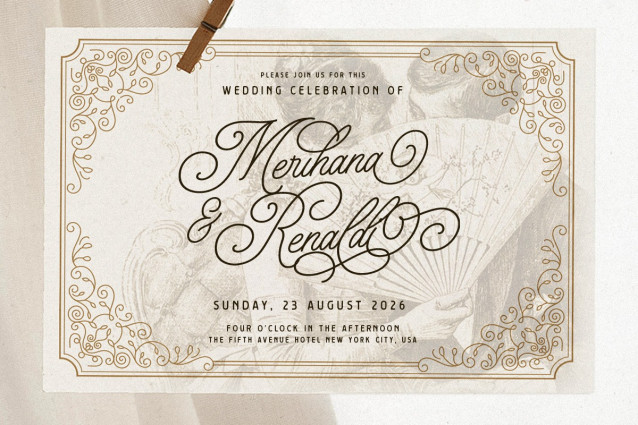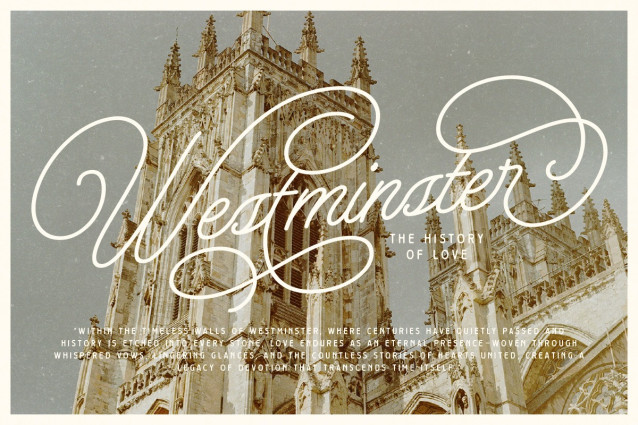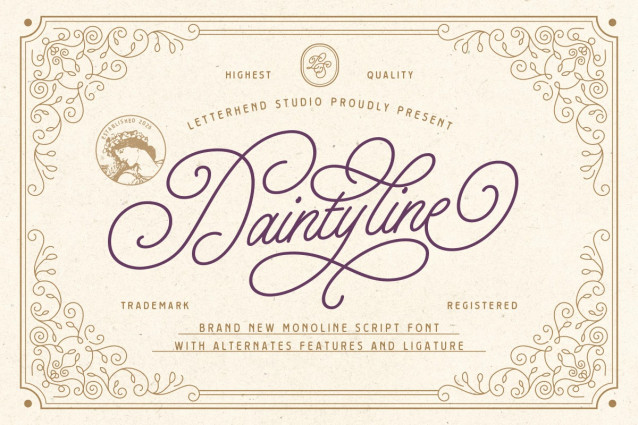
Daintyline Font
Daintyline Font flows in with soft, graceful curves and a charming monoline touch, bringing that sweet vintage elegance with a smooth, modern feel. The strokes are clean yet full of personality, with lovely swashes and delicate loops that dance effortlessly across the page—like a handwritten note with a fancy twist.